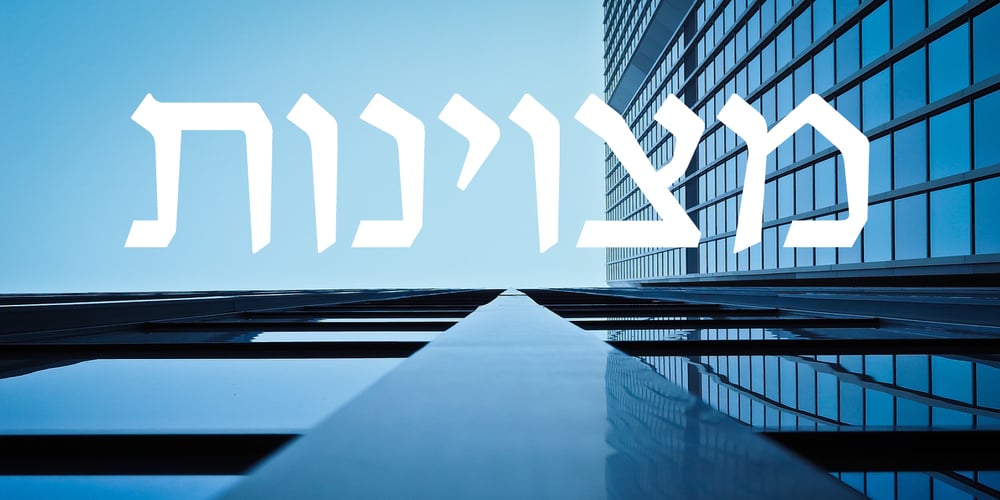
AleKoteret MF Font Family was designed by Eliyahu Fried and published by Masterfont. AleKoteret MF contains 2 styles and family package options. This high readable font family is highly suitable for headlines as well as text.